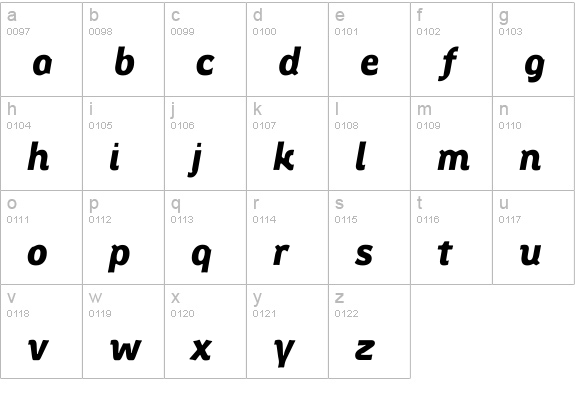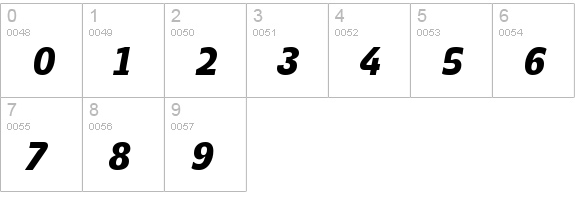
Spotka AlternateBlack Italic is a distinctive, italic variant in the Spotka typeface family \xE2\x80\x94 well suited to design and typography projects.
Spotka AlternateBlack Italic is a stunning and elegant font that effortlessly combines modernity with classic sophistication. Its bold and dynamic strokes exude confidence and style, making it the perfect choice for eye-catching headlines, branding, and editorial design projects. The italic styling adds a touch of flair and uniqueness to any text, making it stand out from the crowd. This versatile font is available for free download at FontsMarket.com, allowing designers and creatives to access its premium quality without any cost. With its sleek and contemporary design, Spotka AlternateBlack Italic is sure to elevate your projects and leave a lasting impression on your audience. Whether you're working on a website, poster, or logo design, this font is a must-have addition to your creative toolkit.